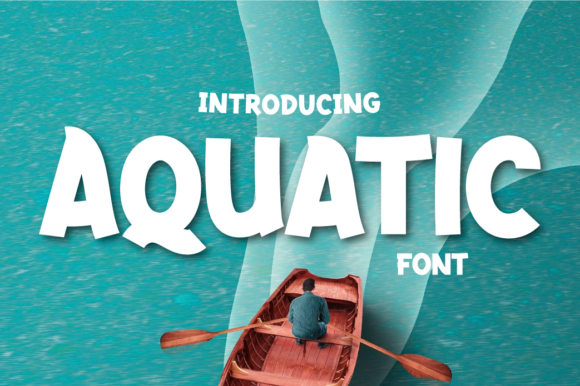
Unleash your creativity and dive into the depths of imagination with Aquatic Font, a display font that will make your designs splash with joy. Its playful and whimsical characters dance across the screen, evoking a sense of childhood wonder and carefree spirit.
Dive into a world of captivating designs with Aquatic Font, the ultimate font for expressing your playful side. Let your imagination run wild as you create eye-catching logos, social media graphics, and website designs that resonate with your audience.
With its charming personality, Aquatic Font is perfect for capturing the attention of your social media followers. Create Instagram logos that pop, Facebook posts that sparkle, and Pinterest pins that enchant. Watch as your engagement soars and your brand becomes the talk of the town.